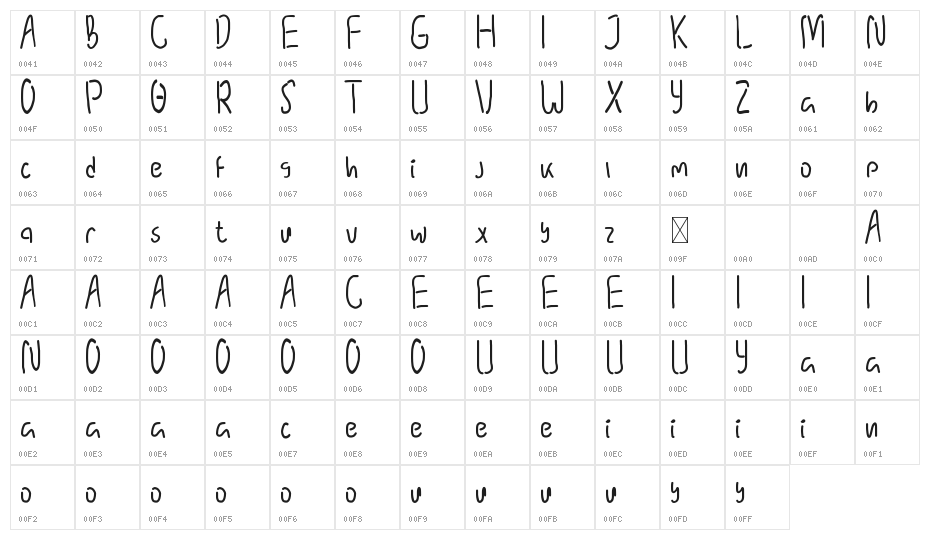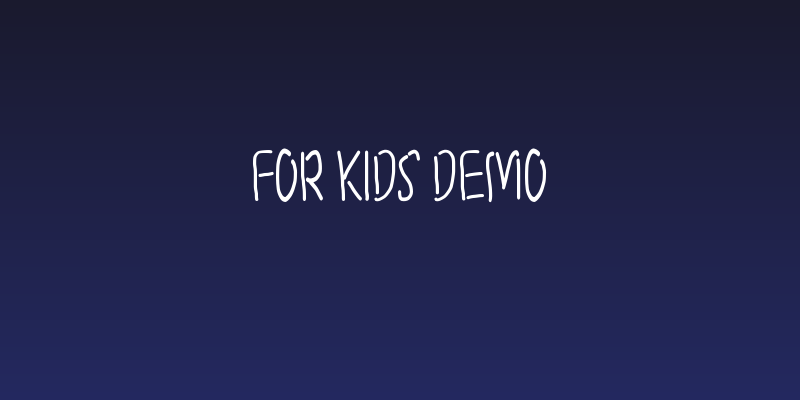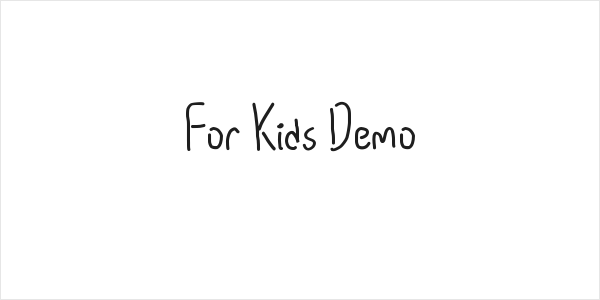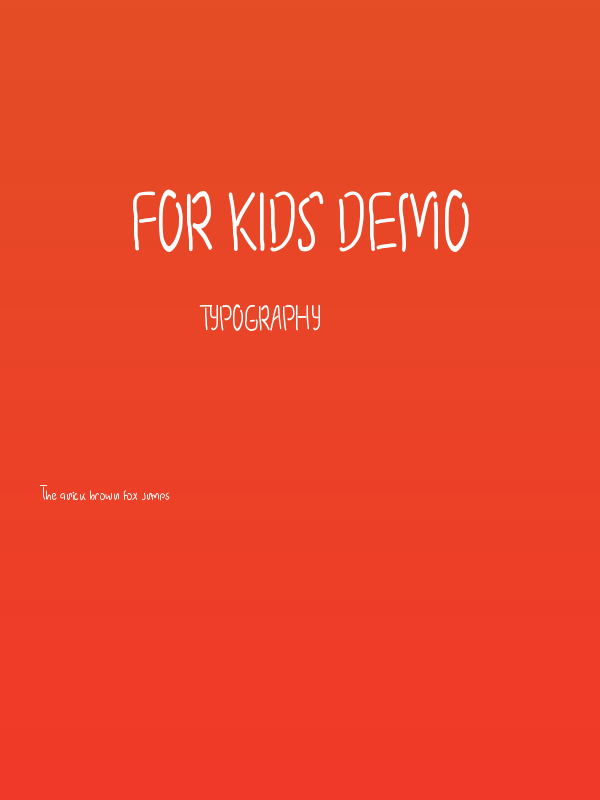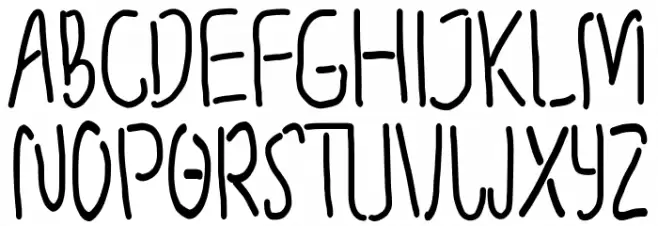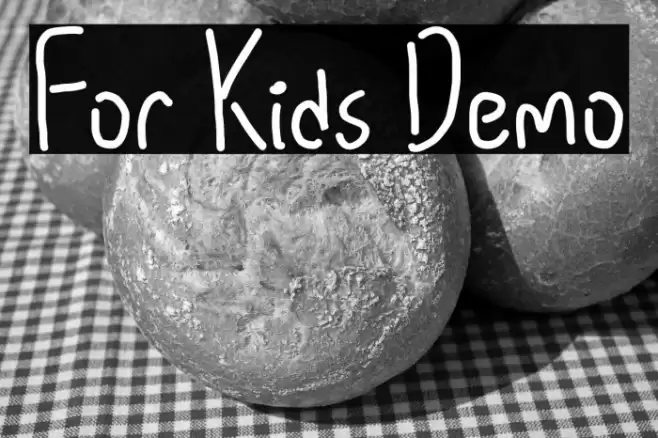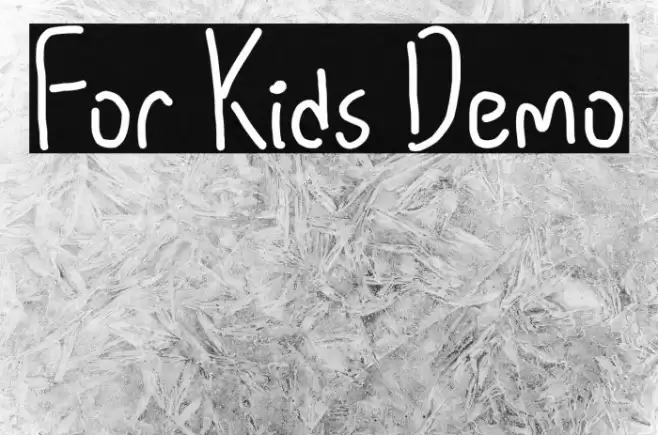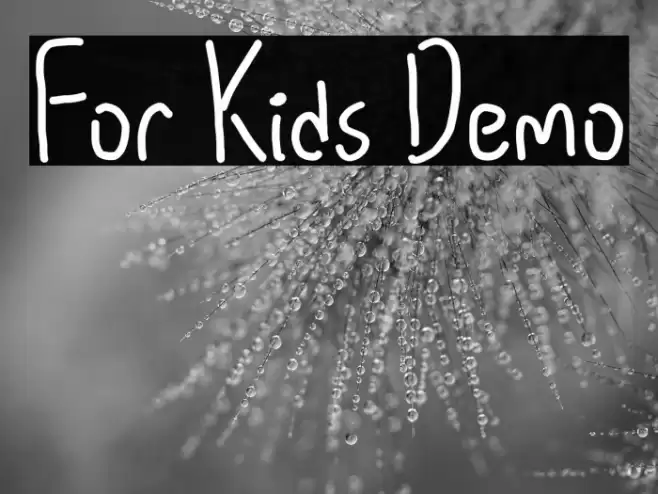
For Kids Demo Font
For Kids Demo Description
This playful and whimsical font features a hand-drawn style that is perfect for children's projects. The letters are tall and narrow with a slight wobble, giving them a fun and informal appearance. The strokes are consistent in width, providing a uniform look while maintaining a casual feel. The uppercase and lowercase letters are distinct, with the uppercase being more elongated. The numbers and special characters follow the same playful design, making the font versatile for various uses. Its friendly and approachable style makes it ideal for engaging young audiences.
| Use Case | Headlines, Children's materials, Branding |
| Proposed Projects | Ideal for children's books, educational materials, playful branding, and kid-friendly websites. |